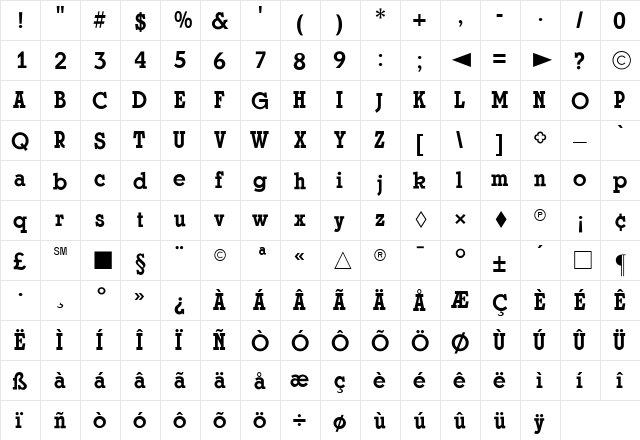
CgStratfordBd Medium
Design Context for CgStratfordBd Typeface
CgStratfordBd offers clean, dependable letterforms without strong stylistic allegiance, making it a practical choice for designers who need flexibility.
Pro Tip: Use CgStratfordBd in both headline and body roles to test its range before committing to a single application.